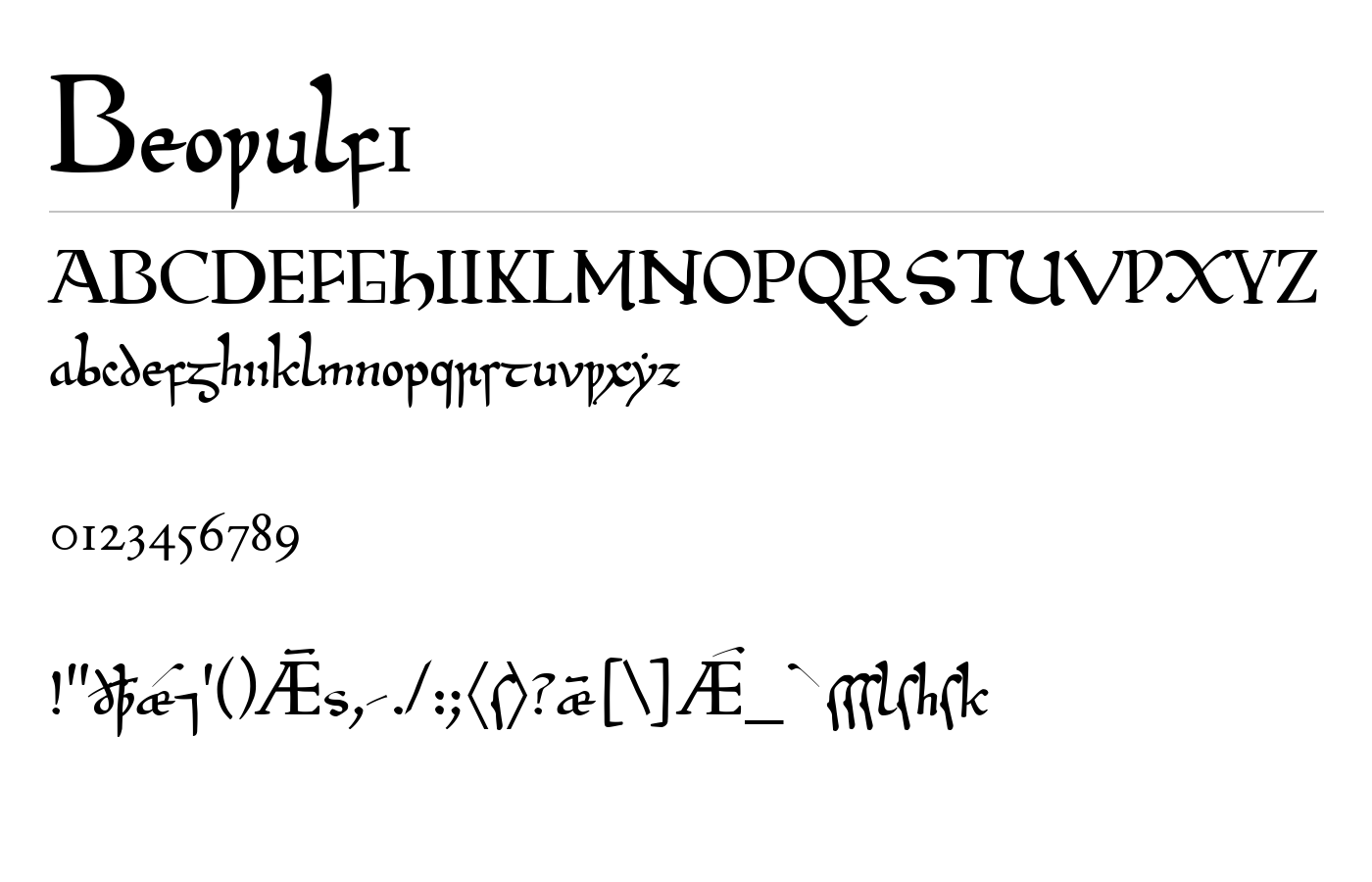
Beowulf1 is a distinctive serif font with a historic, almost medieval feel, characterized by its sharp, irregular strokes and unusual letterforms that evoke ancient scripts. It features a narrow width and moderate contrast, lending a unique, artistic personality perfect for fantasy-themed projects, book titles, or branding that seeks a mysterious, old-world charm. Its elegant yet slightly quirky style works best in display settings where individuality and a dramatic flair are desired.
Beowulf1 Font